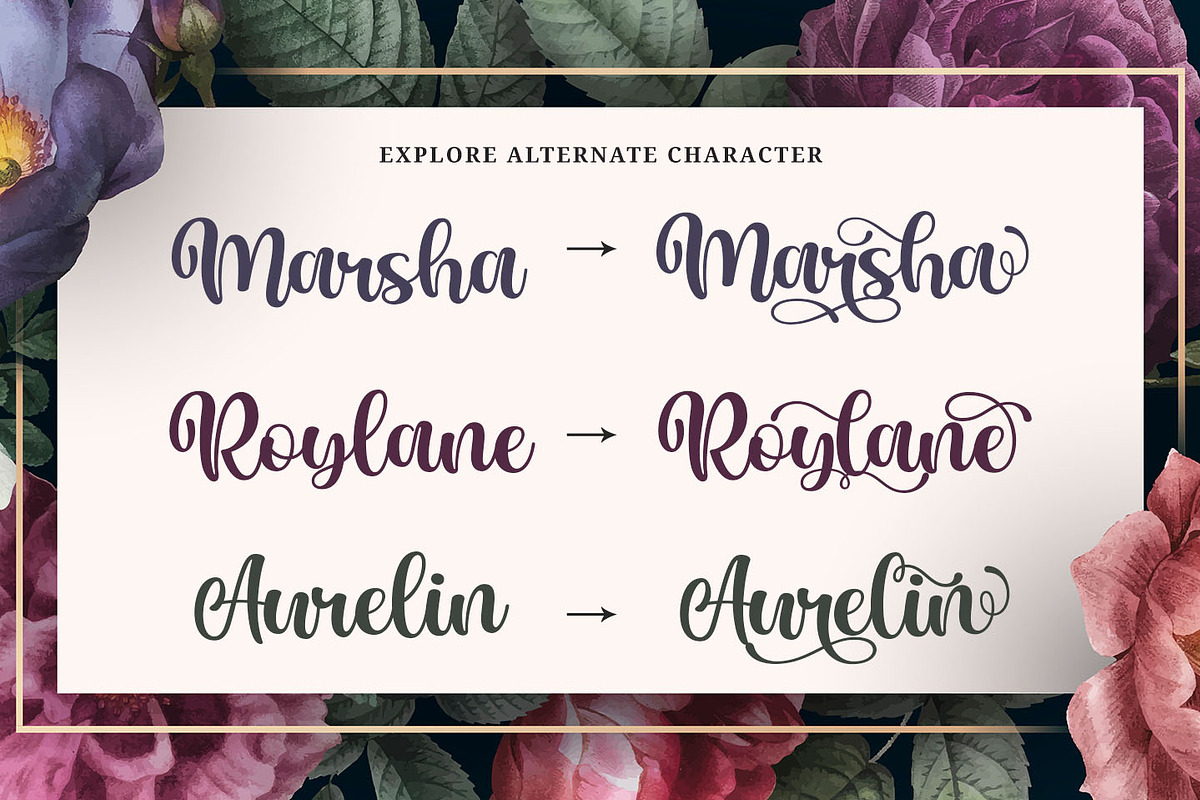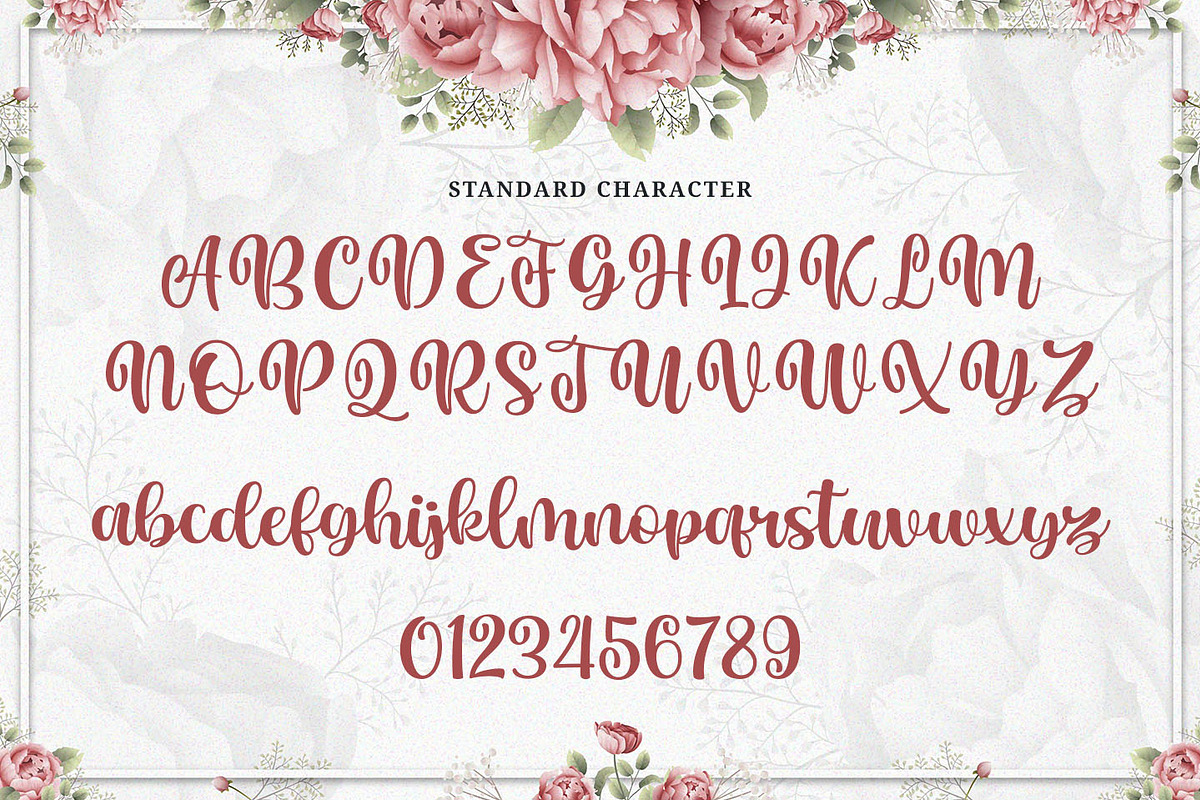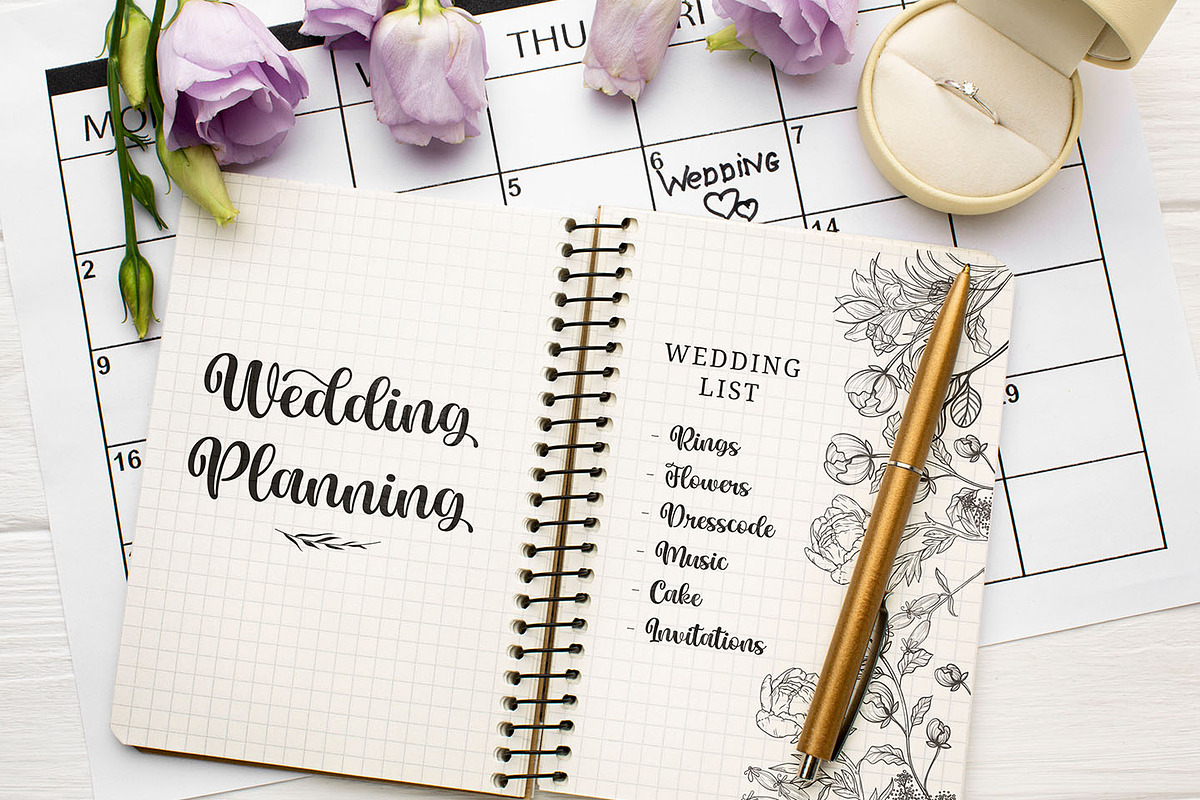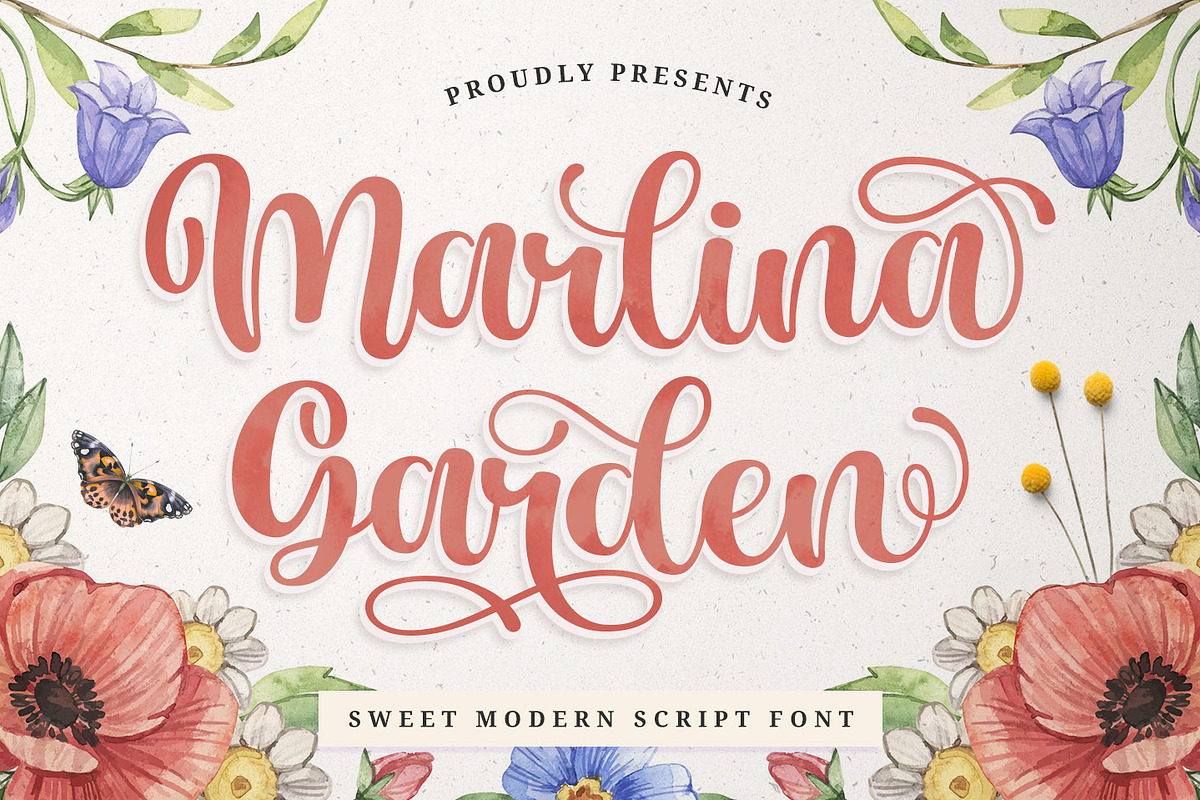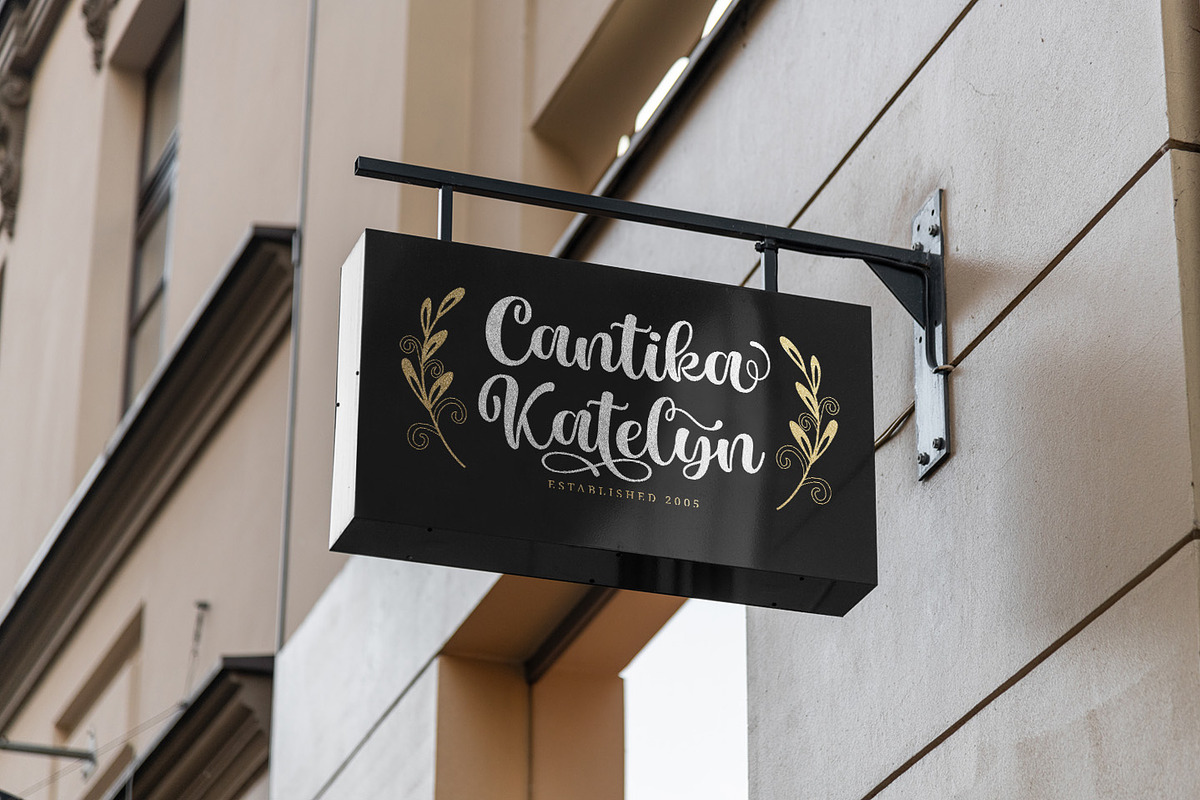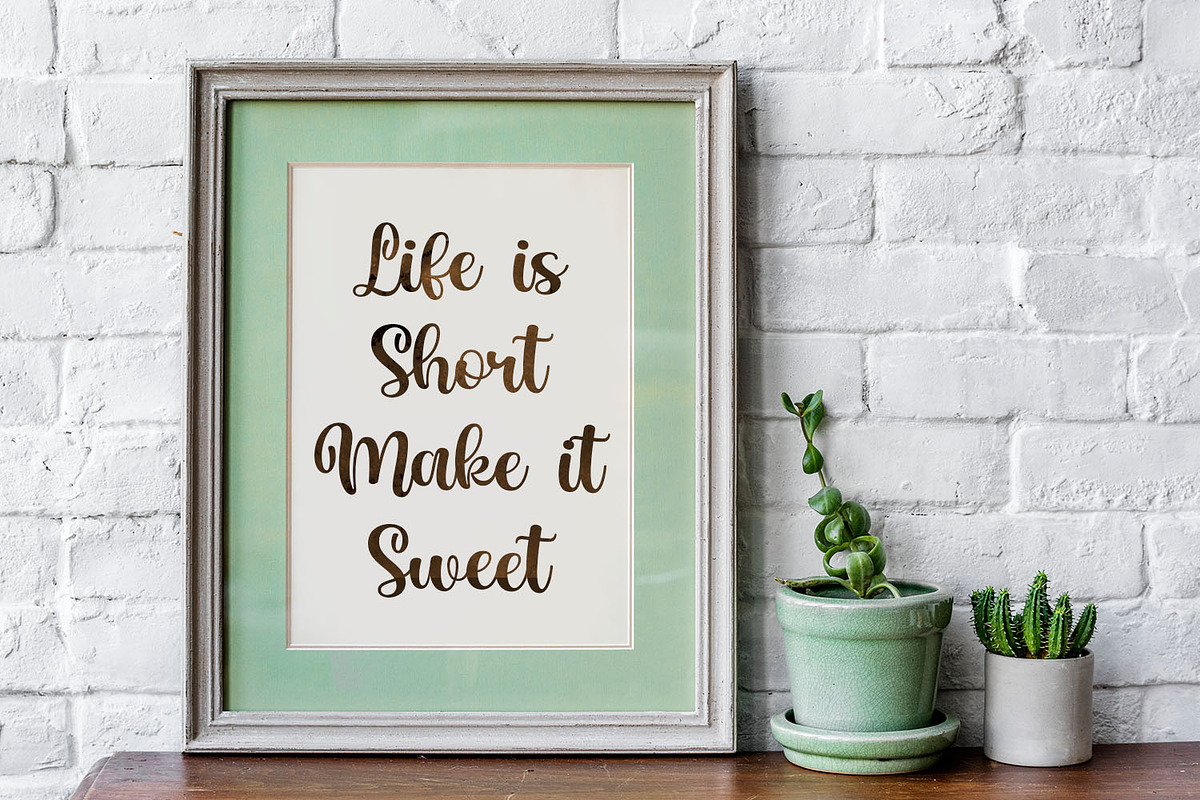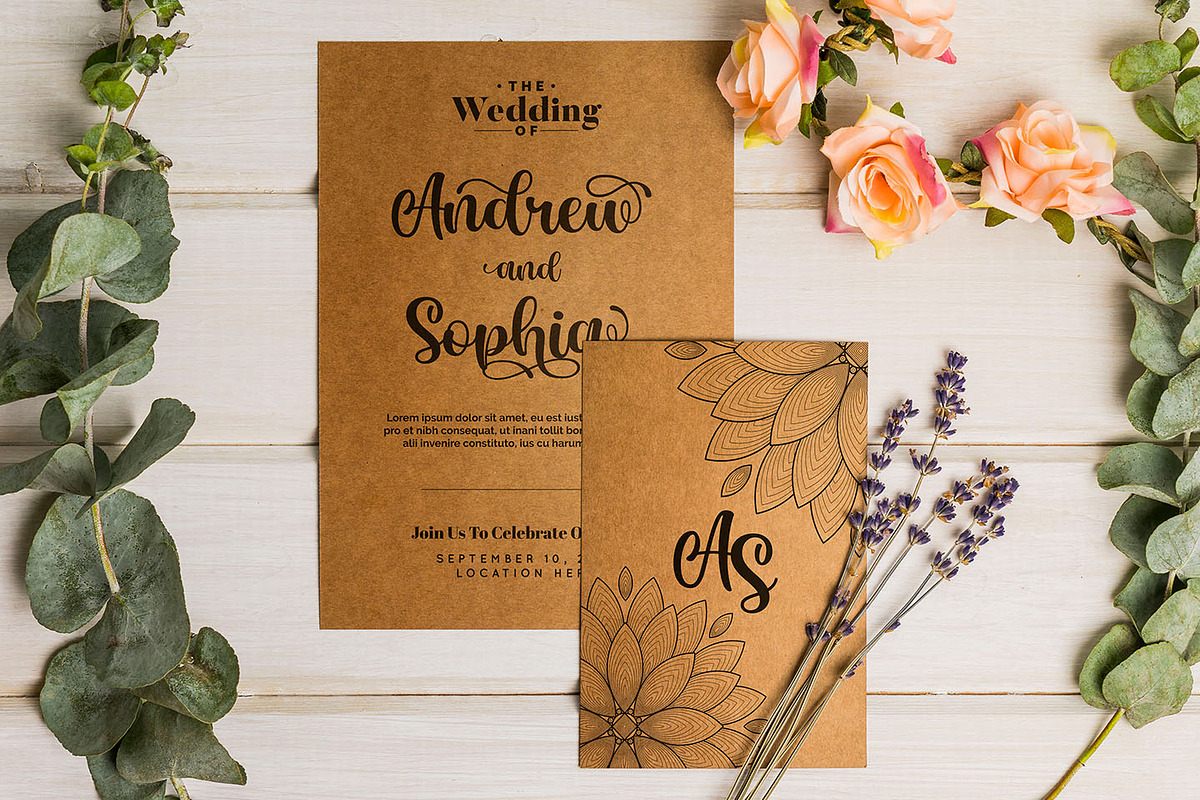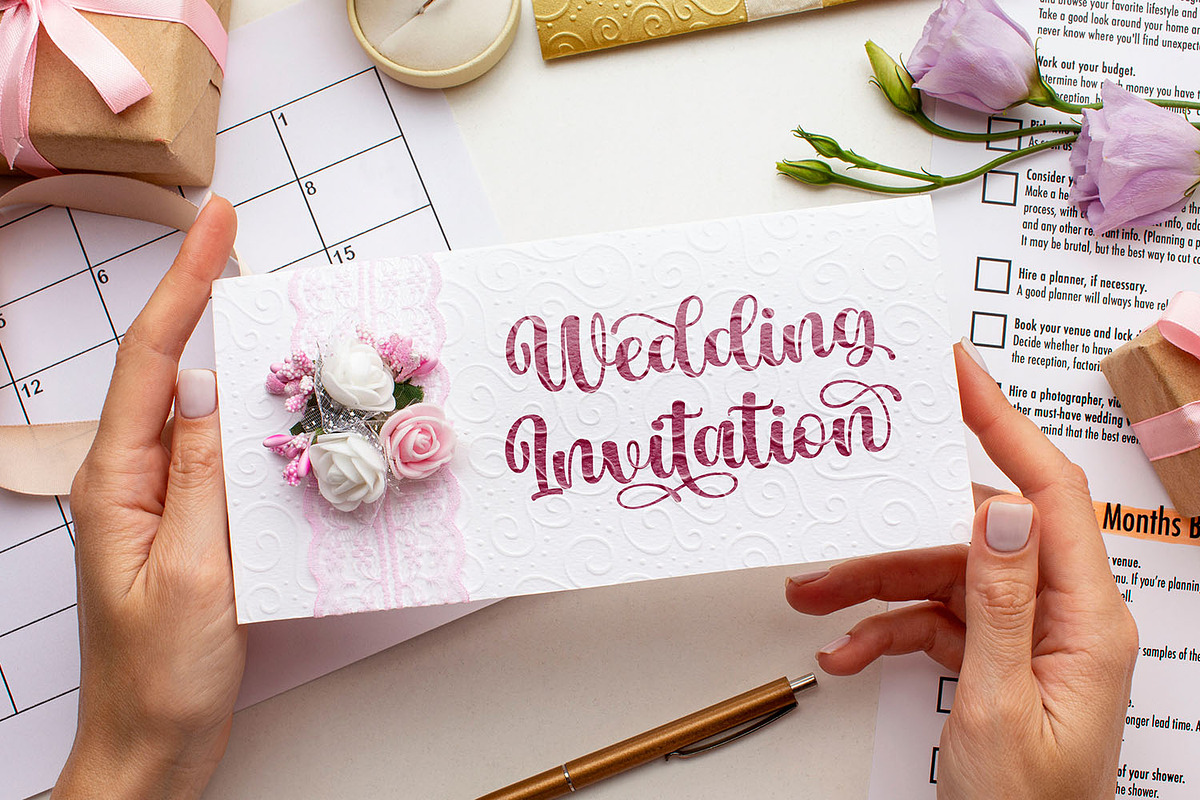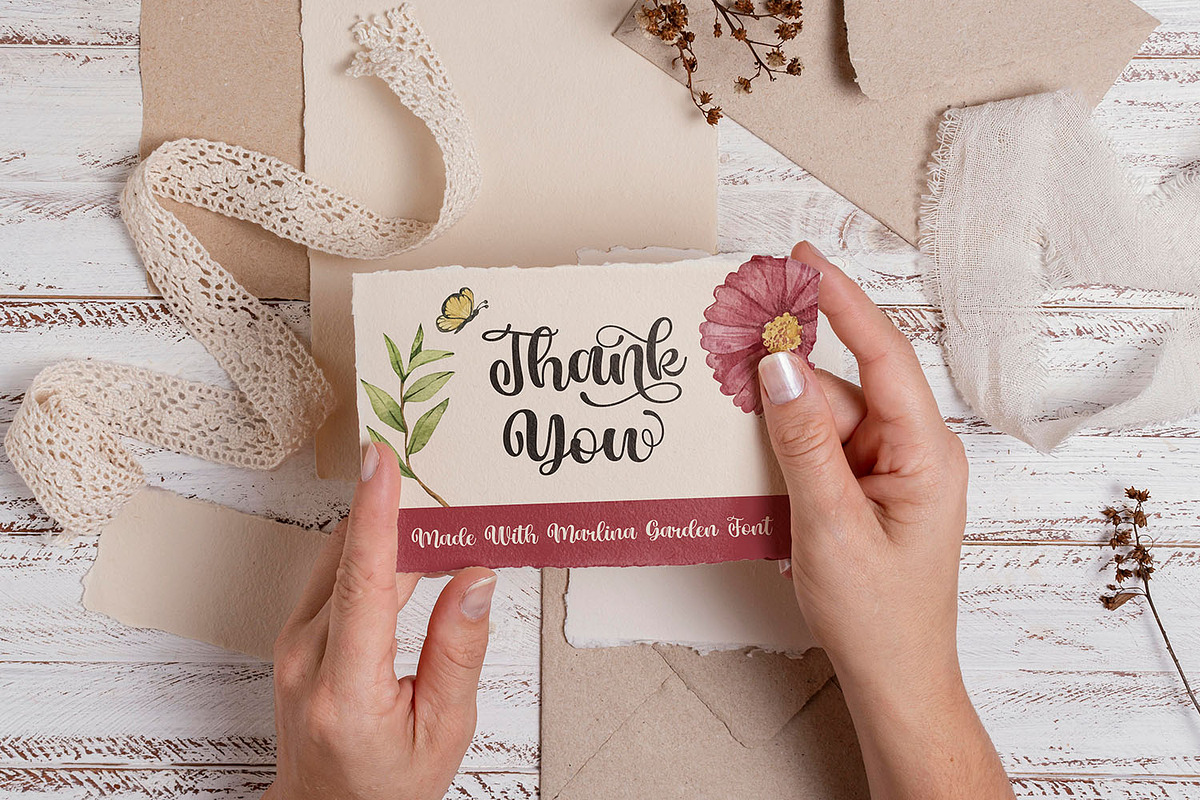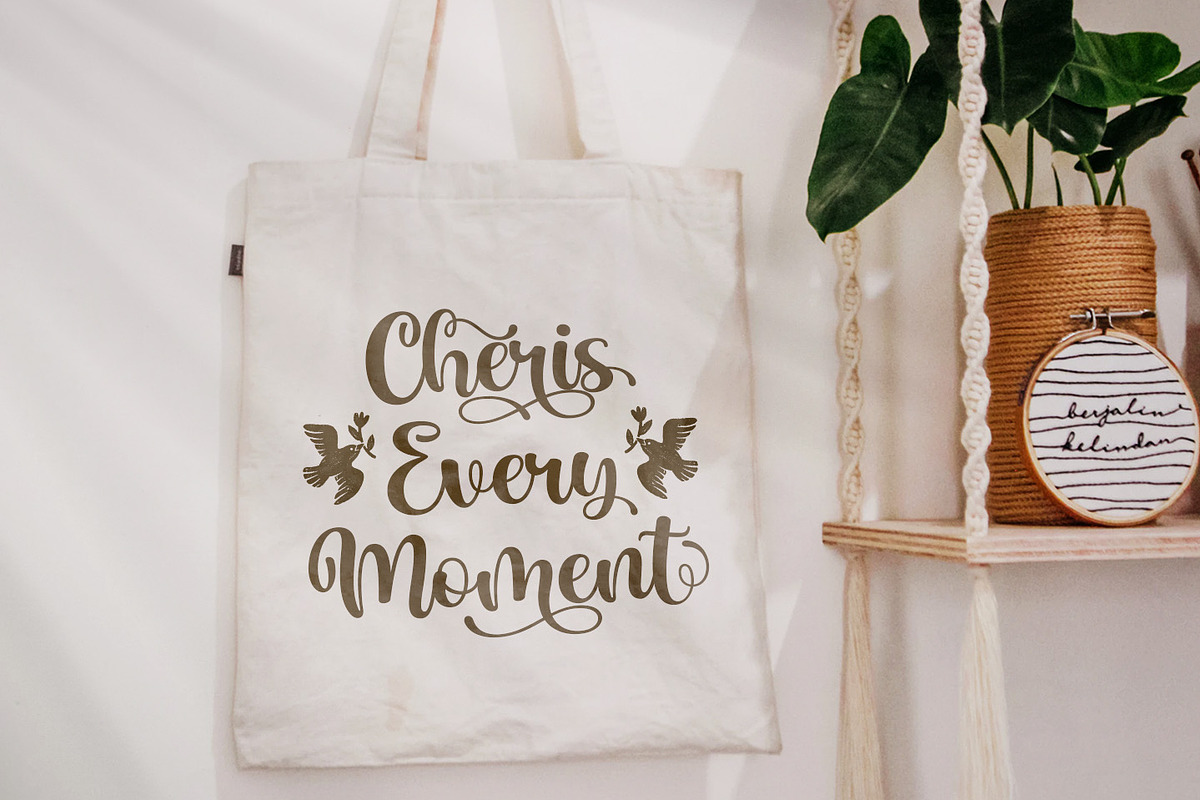
Marlina Garden - Sweet Modern Script
Marlina Garden is a sweet modern script font with a contemporary atmosphere and impeccable form, inspired by timeless classic calligraphy. This font was designed to enhance the beauty of your projects.
Marlina Garden is perfect for many different projects such as logos & branding, invitation, stationery, wedding designs, social media posts, advertisements, product packaging, product designs, label, photography, watermark, special events, or anything.